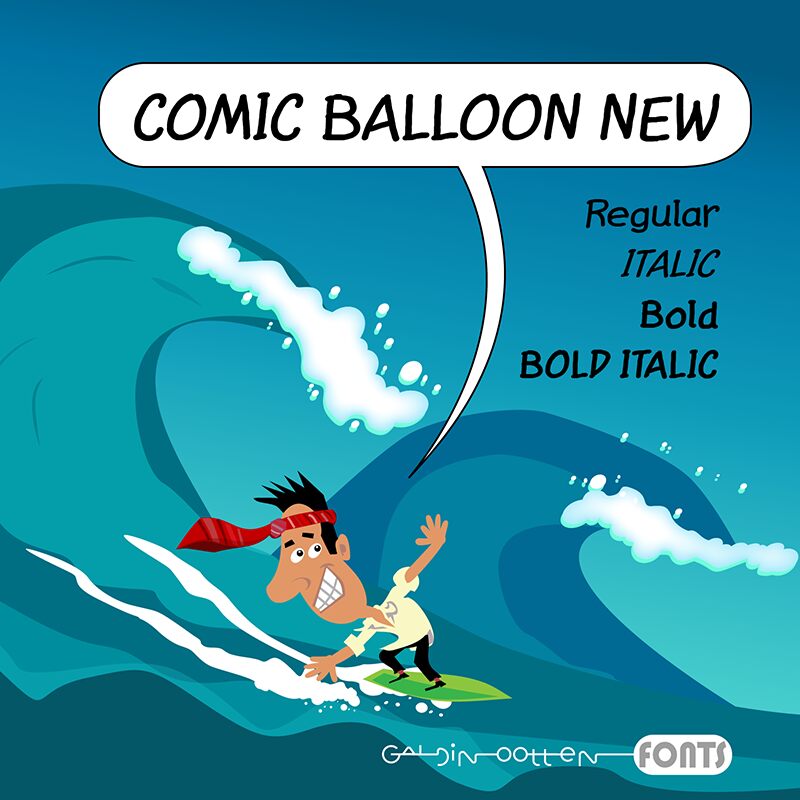
Comic Balloon New Italic
Comic Balloon New Italic font is an expressive contemporary application in comic style design. This high-legibility display font is designed by Galdino Otten Fonts, and it features slanted orientation and uniform letter height to further add balance within visual elements. An unusual flowing letter shape defines its casual feel which makes this free creative type legible and readable at any project size.
From social media templates, posters, advertisements, flyers, headers, homepage sections visual design and more commercial identity items can utilize this font. It's additionally great for comic books typography applications such as headlines or narrative texts as the designer would like to use them!